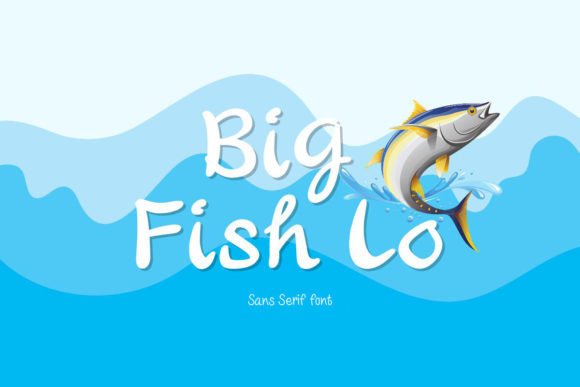
Immerse yourself in the world of Halloween with Big Fish Lo, a frightfully delightful sans serif font family that oozes charm and spookiness. Crafted by the talented TanoiCartoonist, this font is a captivating blend of cuteness, boldness, and playfulness, making it the perfect choice for a plethora of Halloween-themed projects.
With its thick, chunky letters and cheerful demeanor, Big Fish Lo is sure to cast a spell on your audience. Its versatility is as vast as a haunted mansion, lending itself flawlessly to greeting cards, headlines that scream for attention, heartfelt thank you cards, and captivating quotes that send shivers down the spine.
Designers, prepare to be enchanted as you weave your creative magic with Big Fish Lo. This font is an artist's dream, effortlessly elevating website designs, logos, posters, and blogs to spine-tingling heights. Unleash your imagination and conjure up spellbinding T-shirts, bags, and clothing that will have your customers under your spell.
Big Fish Lo is more than just a font; it's a gateway to a world of Halloween enchantment. Its very essence evokes the spirit of the season, making it the ultimate choice for creating invitations, party decorations, and social media posts that are sure to raise the hairs on the back of your neck.